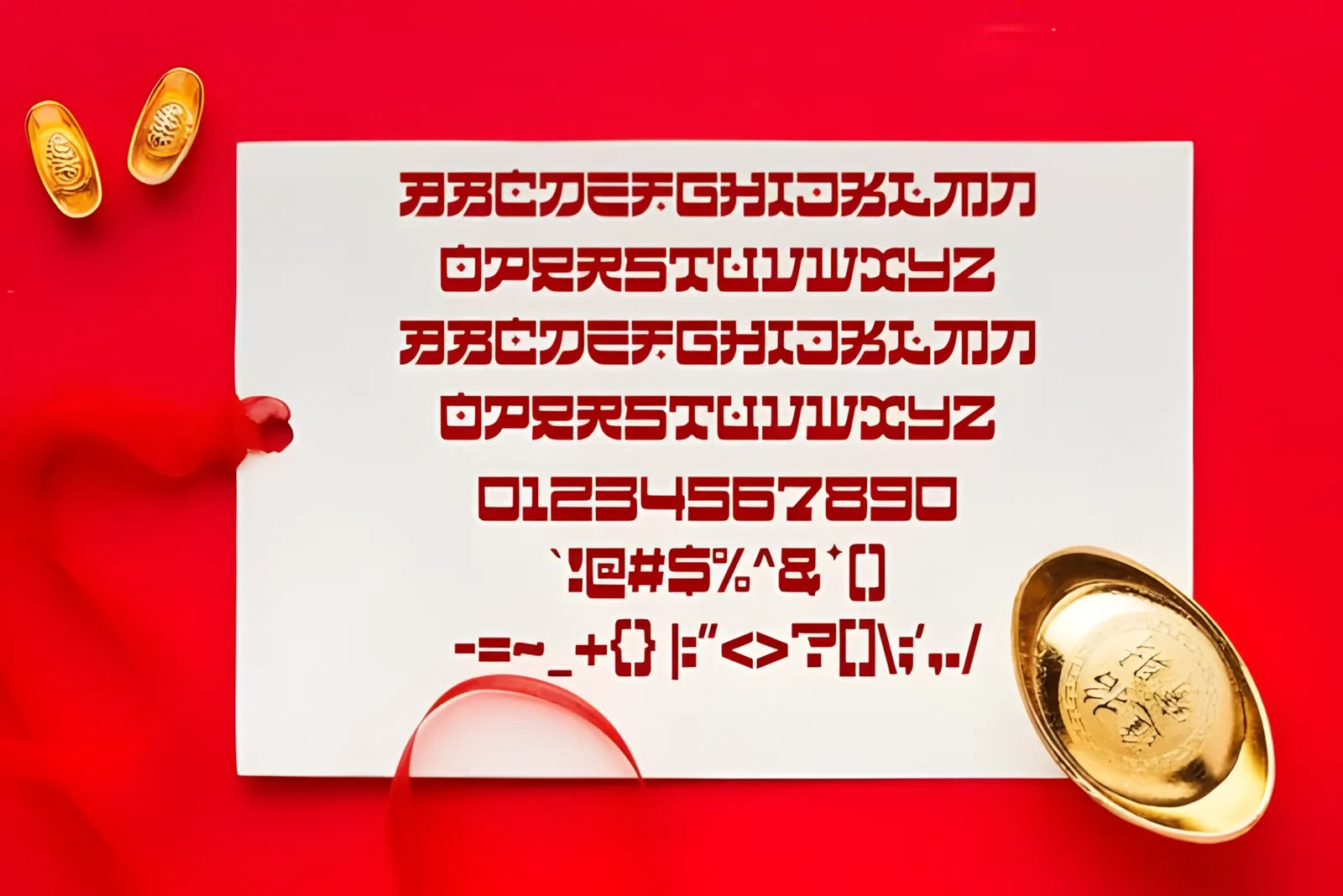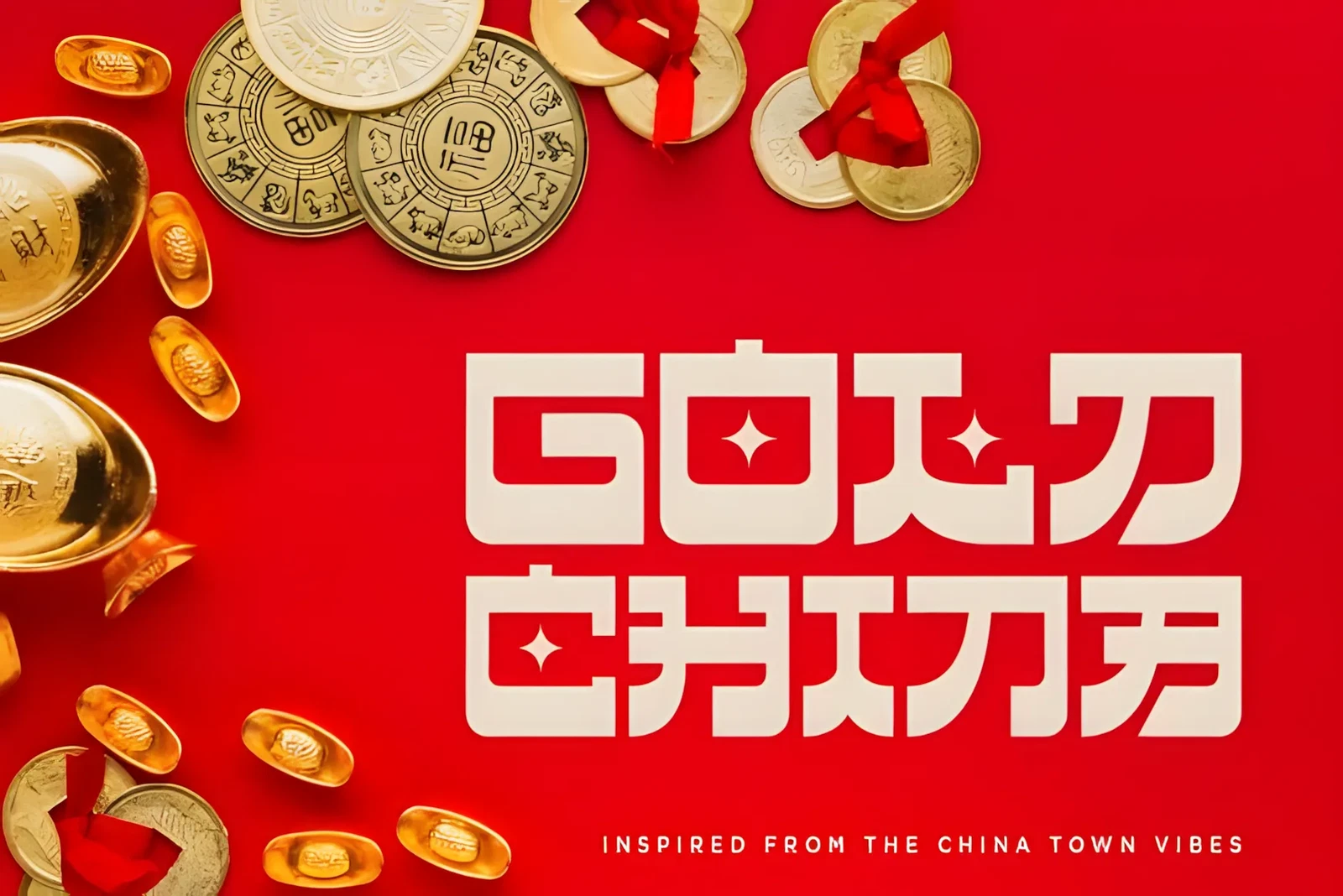
Typography plays a crucial role in branding and visual identity. The right font can instantly communicate quality, elegance, and cultural character. The Gold China font is a decorative display typeface created for designers who want to add a premium, Asian-inspired look to their projects.
This luxury decorative font is commonly used in logo design, branding typography, packaging, and promotional materials where strong visual impact and a refined appearance are essential.
What Is the Gold China Font?
Gold China is a decorative Chinese-style font inspired by traditional Asian aesthetics combined with modern luxury typography. Its bold and expressive letterforms make it a premium display font designed to stand out in professional design projects.
This typeface is best suited for logos, headlines, titles, and short text elements rather than long body text, making it ideal for branding and marketing use.
Design Style and Visual Characteristics
The Gold China font blends decorative details with clean structure, resulting in a visually striking yet readable typeface. Its design reflects cultural influence while remaining versatile for modern branding and advertising projects.
This premium typography performs especially well in minimalist layouts, dark or neutral backgrounds, and luxury design concepts where typography is the main visual element.
Common Uses for Gold China Font
Logo and Brand Identity Design
Gold China is widely used as a decorative font for logos, especially for brands that want to appear elegant, exclusive, or culturally inspired. It is well suited for luxury brands, restaurants, fashion labels, beauty products, and creative businesses.
The font helps establish a strong and recognizable brand identity without relying on complex graphic elements.
Posters, Flyers, and Advertising Materials
In marketing and advertising, visual impact is essential. Gold China works effectively as a display font for posters, flyers, banners, and promotional graphics where bold decorative lettering is required.
It pairs well with dark backgrounds, gold accents, and clean layouts, making it a strong choice for premium advertising design.
Packaging and Product Design
Gold China is also suitable for branding typography in packaging and product design. It enhances labels, boxes, and product presentations by adding a refined and high-end appearance.
This makes it an excellent option for luxury packaging and premium product branding.
Advantages of Using Gold China Font
- Distinctive decorative style with Asian-inspired design
- Premium and professional visual appearance
- Ideal for logos, branding, and display typography
- Works across print and digital design projects
Gold China is a luxury decorative font that adds elegance, cultural depth, and strong visual impact to design projects. It performs especially well in logos, branding, packaging, and promotional materials where premium typography is required.
For designers searching for a decorative Chinese-style font suitable for professional and commercial use, Gold China is a strong and reliable choice.